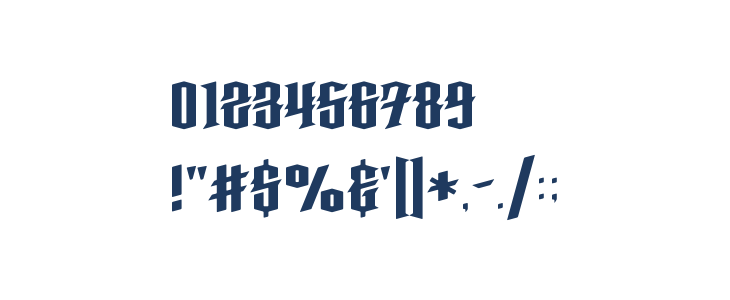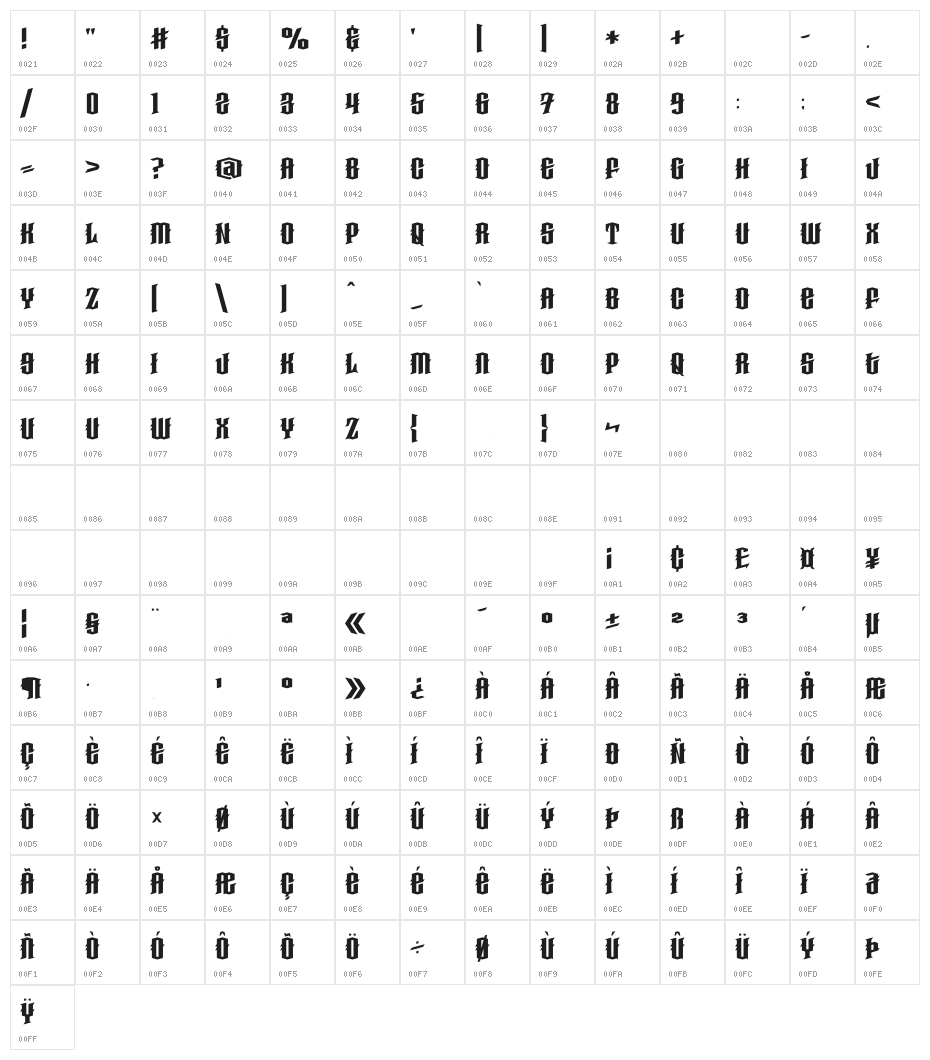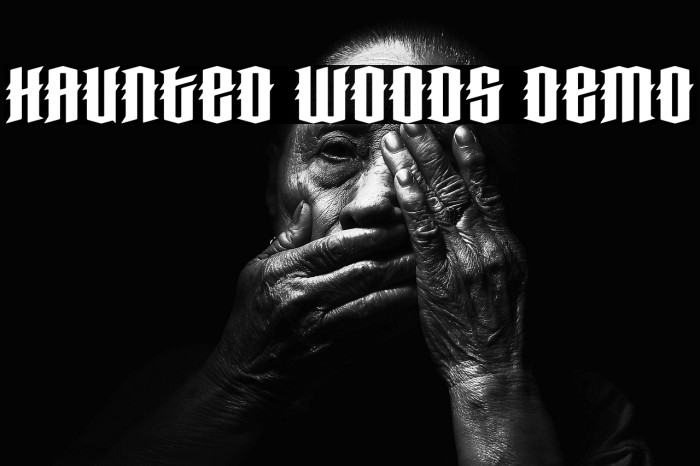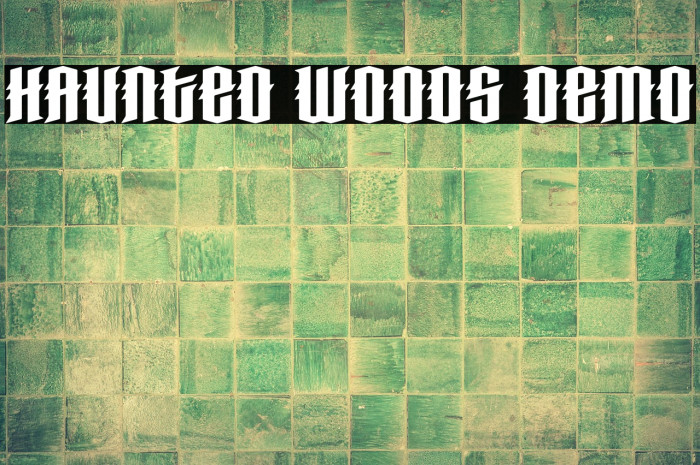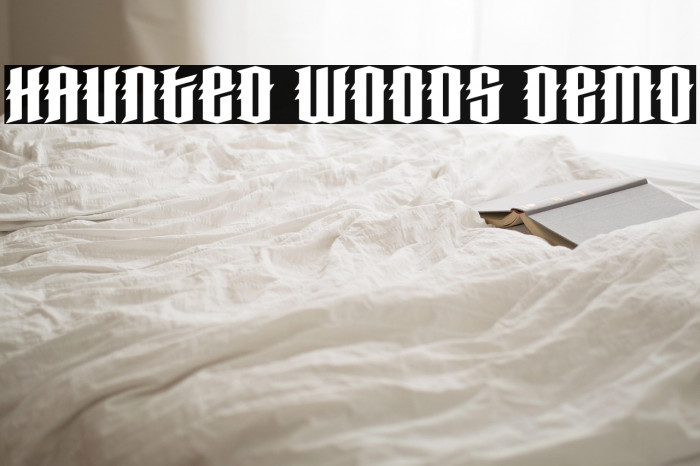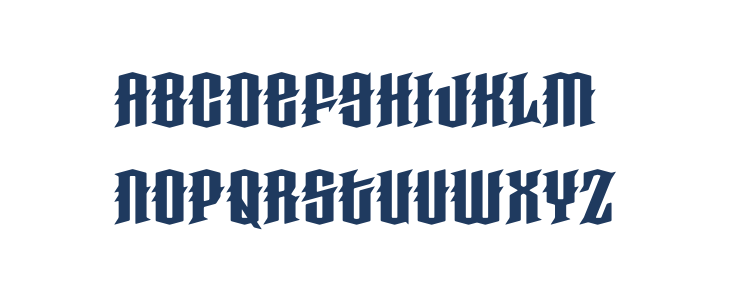
Haunted Woods Demo Font
Haunted Woods Demo Description
This font features a bold and striking design with sharp, angular edges and a gothic flair. The characters are heavily stylized, with a distinct emphasis on vertical lines and pointed serifs, giving it a dramatic and intense appearance. The uppercase and lowercase letters maintain a consistent style, with a strong presence and a slightly condensed form. The numbers and special characters follow the same aesthetic, ensuring a cohesive look across all elements. This font is ideal for creating a sense of mystery and intrigue, making it perfect for themes related to horror, fantasy, or anything requiring a bold statement.